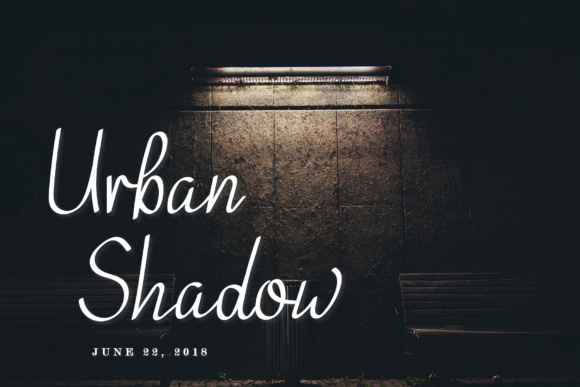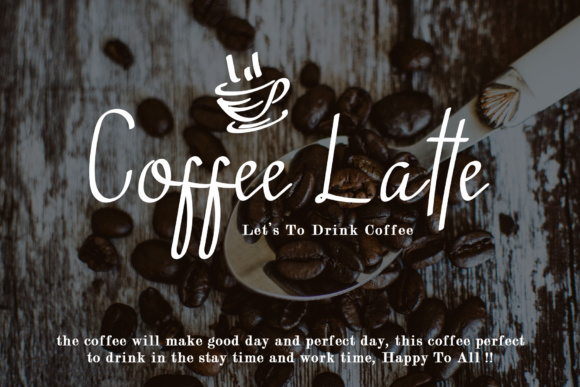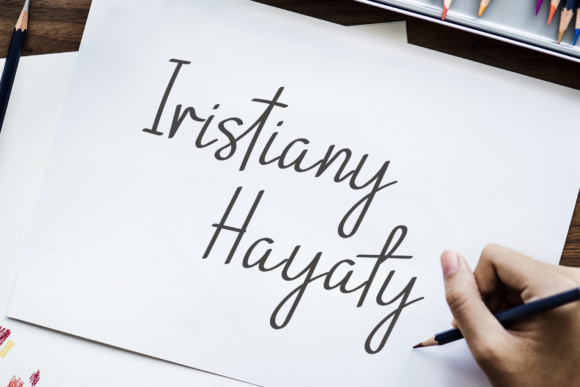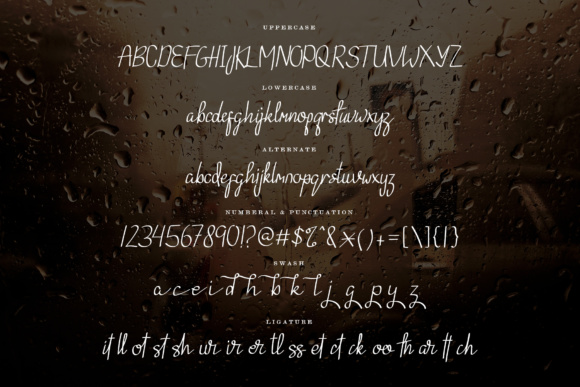
Ebnantti Script Font
About Ebnantti Script Font
Ebnantti is a beautiful script font which can be used for various purposes such as editorial design, book / cover titles, posters, special events or anything that need hand-drawn taste.